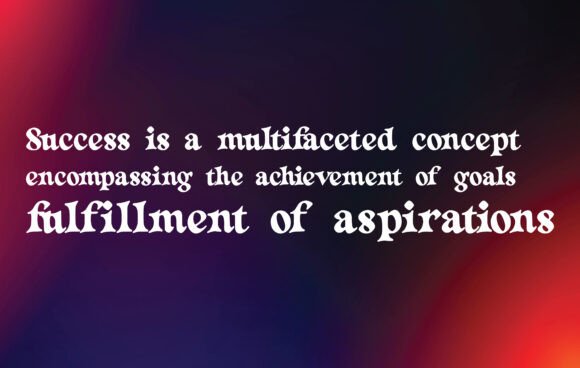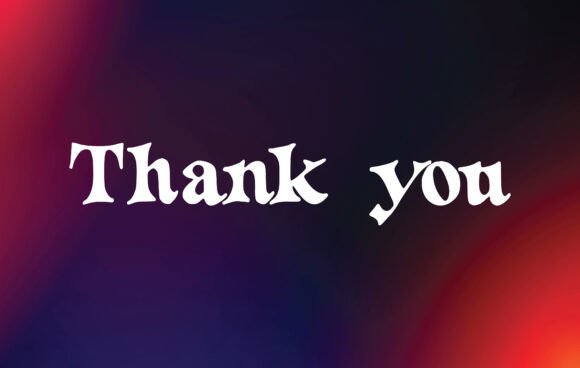
Introducing Comfrey Font: The Ultimate Design Companion
In the world of typography, a great font can make all the difference in elevating your creative projects from ordinary to extraordinary. If you’re on the hunt for a typeface that seamlessly blends style, versatility, and readability, look no further than Comfrey Font. This exquisite font is carefully crafted to become a staple in your collection, offering the perfect harmony of aesthetics and functionality to enhance any design endeavor.
Aesthetic Appeal and Versatility
Comfrey Font boasts a unique charm that instantly captures attention. Its design is not just visually appealing but also incredibly versatile, making it suitable for a wide range of applications. Whether you’re working on magazine headlines, t-shirt designs, social media posts, branding materials, wedding invitations, or greeting cards, this font integrates effortlessly, adding a touch of sophistication and elegance to your creations.
Readability and Practicality
One of the standout features of Comfrey Font is its exceptional readability. In today’s fast-paced digital landscape, a font that is easy to read is invaluable. This font ensures that your message is conveyed clearly and effectively, whether it’s used for titles or body text. The clarity of Comfrey Font makes it an excellent choice for both digital and print media, catering to the needs of designers and crafters who require a reliable and stylish typeface for various projects.
Comfrey Font is more than just a typeface; it’s a creative tool designed to inspire and enhance your projects. For designers, it offers a fresh and distinctive look that can help differentiate your work from the crowd. For crafters, it provides a professional and polished aesthetic that can elevate handmade products, such as customized t-shirts, invitations, and cards, to a new level of sophistication.
Key Features of Comfrey Font
- Versatile Design: Suitable for a wide range of projects, from digital media to print materials.
- High Readability: Ideal for both titles and body text, ensuring your message is always clear.
- Elegant Aesthetic: Adds a touch of sophistication and elegance to any design.
- Easy Integration: Seamlessly fits into various design contexts, from formal to casual.
Tips for Using Comfrey Font
To make the most of Comfrey Font, consider the following tips:
- Mix and Match: Combine Comfrey Font with other typefaces to create visual interest and hierarchy in your designs.
- Play with Sizes: Use varying font sizes to emphasize certain elements and create a dynamic layout.
- Experiment with Colors: Take advantage of Comfrey Font’s versatility by experimenting with different colors and textures.
Comfrey Font is a remarkable addition to any designer’s or crafter’s toolkit. Its perfect blend of style, versatility, and readability makes it an invaluable asset for elevating creative projects. Whether you’re a professional designer looking for a reliable and stylish typeface or a crafter seeking to add a professional touch to your handmade products, Comfrey Font is sure to exceed your expectations. Make it your go-to favorite and discover the difference it can make in your creative endeavors.
With Comfrey Font, you don’t just get a typeface; you gain a partner in creativity, one that can help you achieve your design goals with ease and elegance. So why wait? Integrate Comfrey Font into your projects today and experience the transformative power of exceptional typography.